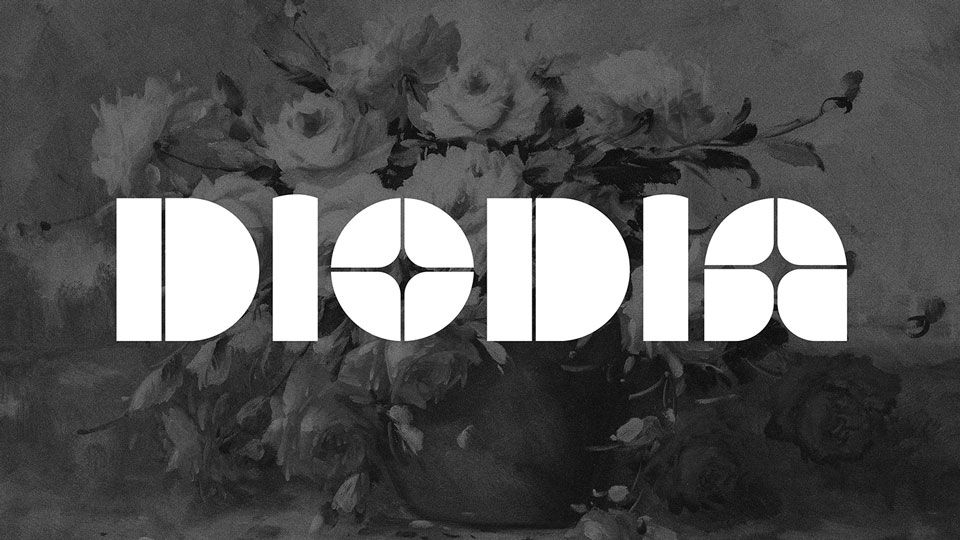
Download Diodia font, a brutalist inspired typeface that is constructed using bold and simplistic shapes. This gives it a very structured appearance but to add in contrast, the letters were given a floral and elegant flair.
Designer: Keanu van Rensburg